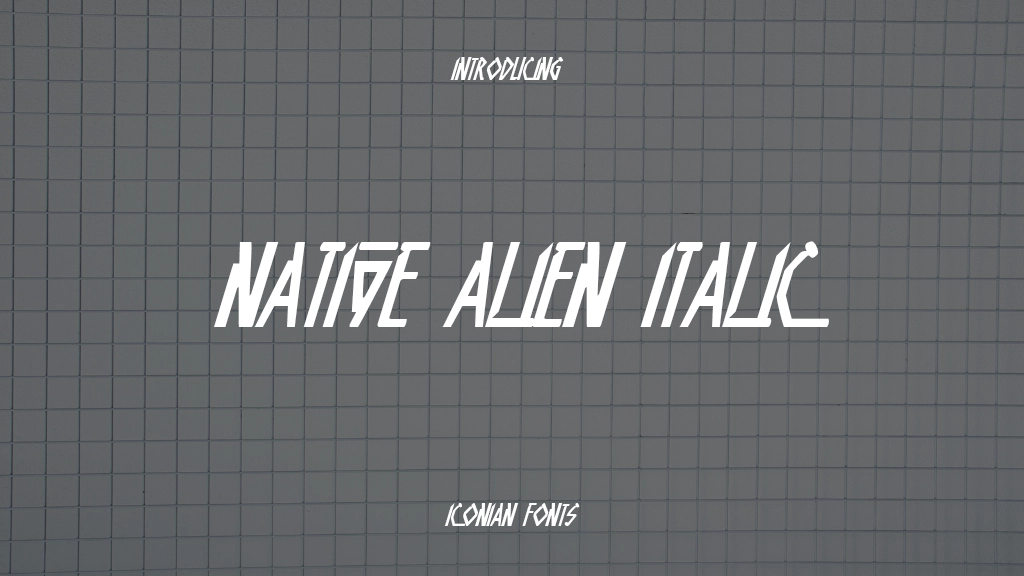
The Native Alien Italic font is a fun and stylish font that is perfect for use in a variety of designs.The font is available in an Italic subfamily, which makes it even more versatile.
Typography Sets Of Native Alien Italic Font
Native Alien Italic Font, Special Characters Typography Set